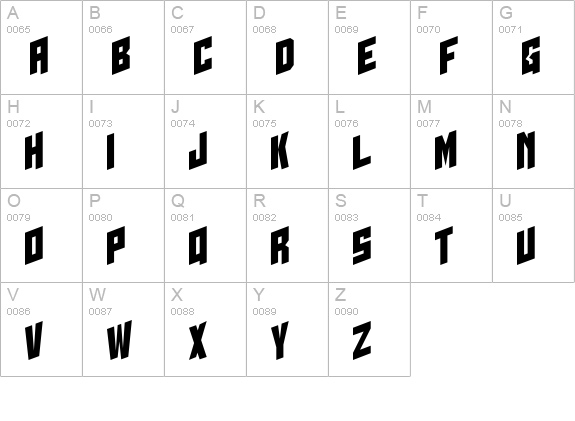
I2trigunMaximum E Font Details
Introducing I2trigunMaximum E, a captivating and bold font that exudes power and intensity. This unique typeface is perfect for adding a touch of strength and edginess to any design project. With its sharp angles and strong lines, I2trigunMaximum E commands attention and demands to be noticed. This font is not only visually striking but also incredibly versatile, making it suitable for a wide range of applications. Whether you're designing a logo, creating eye-catching headlines, or crafting a poster that needs to make a statement, I2trigunMaximum E will deliver every time. One of the most impressive aspects of I2trigunMaximum E is that it is available for free. Yes, you read that right. This powerful font can be freely downloaded at FontsMarket.com. Now, you can enhance your designs with a bold and commanding typeface without breaking the bank. I2trigunMaximum E is a true game-changer, combining the perfect balance of strength, style, and versatility. Its unique design and bold presence will instantly elevate any design project, ensuring that your message stands out from the crowd. So, why wait? Download I2trigunMaximum E today and unleash the power of this captivating font. Let your creativity run wild and create designs that leave a lasting impression. With I2trigunMaximum E, the possibilities are endless, and your designs will never be the same again.